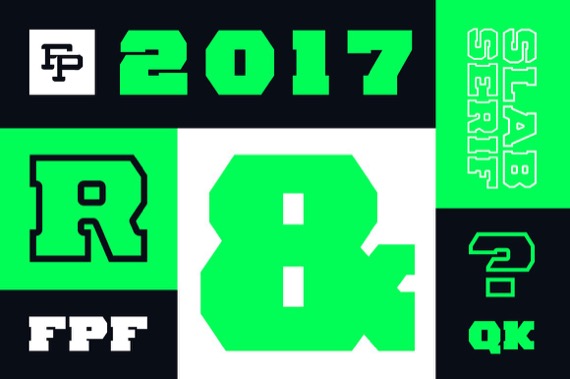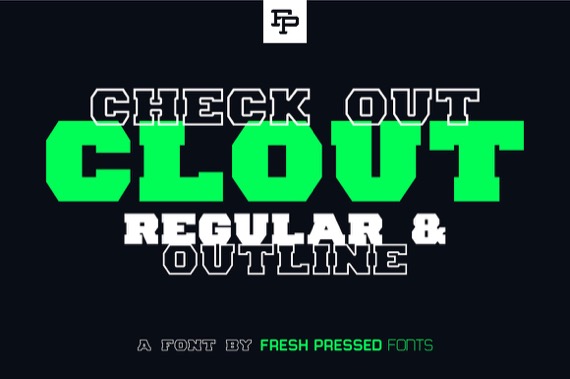
Introducing Clout Font by Fresh Pressed Fonts, a versatile retro & elegant display font inspired by the great “Latin typeface”. Clout was designed with a sports influence, but is definitely not limited to just that genre. It can be used in all kinds of ways as a strong and bold display font. With two styles, Regular & Outline, it’s perfect to either stand out or take a supporting role in your designs. This is an uppercase font with 200+ glyphs and international language support.
Clout Display Font